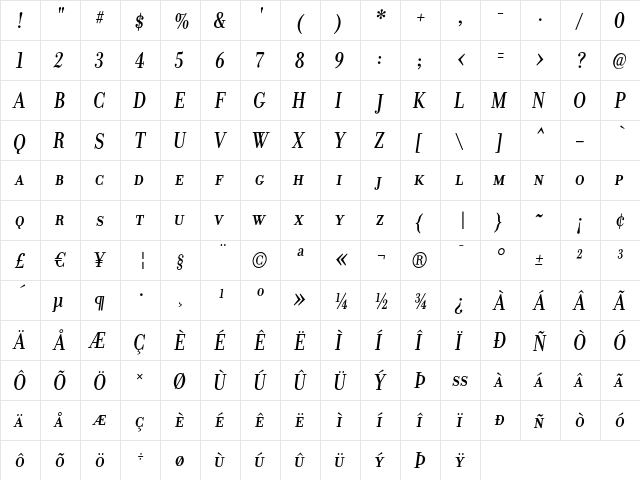
DonatoraMediumSC Italic
Design Context for DonatoraMediumSC Typeface
DonatoraMediumSC offers clean, dependable letterforms without strong stylistic allegiance, making it a practical choice for designers who need flexibility. The dynamic lean of this cut emphasises speed and emphasis in any layout.
Pro Tip: Try DonatoraMediumSC for annotation and caption copy alongside an upright companion — the contrast in angle creates a dynamic but ordered typographic system.